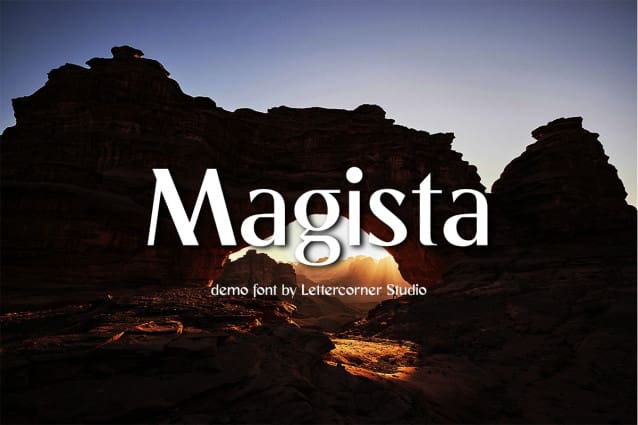
Magista Humanist Font
Magista Humanist Font, Perfectly fit for branding, logo, wedding things, greeting cards, fashion, lookbook, marketing promotion, anytime you want to look fancy elegant but still casual.